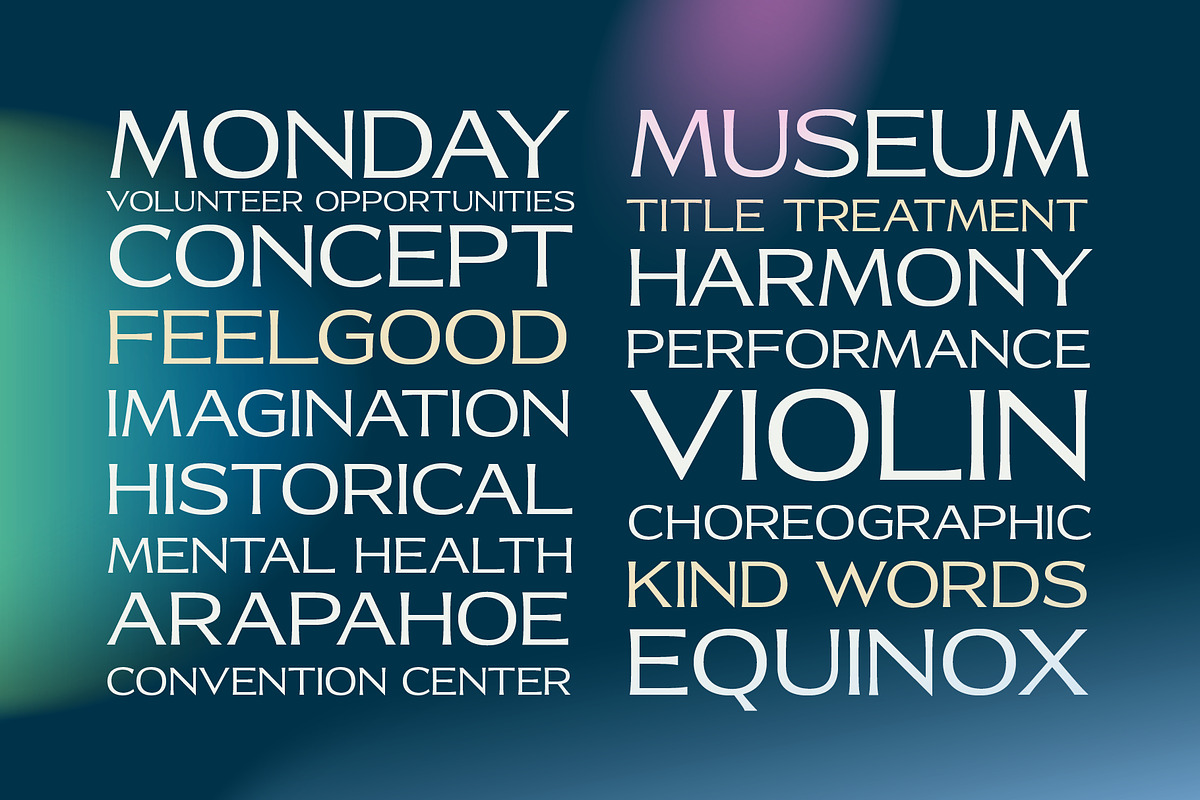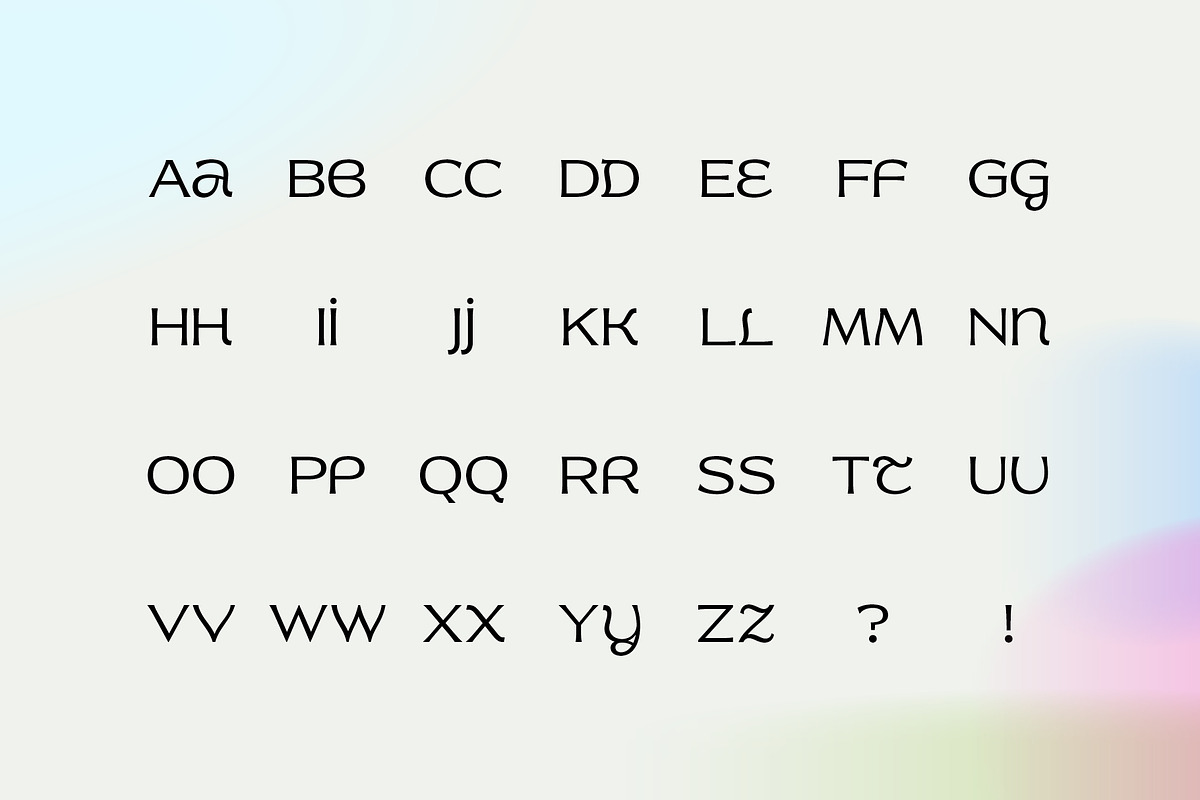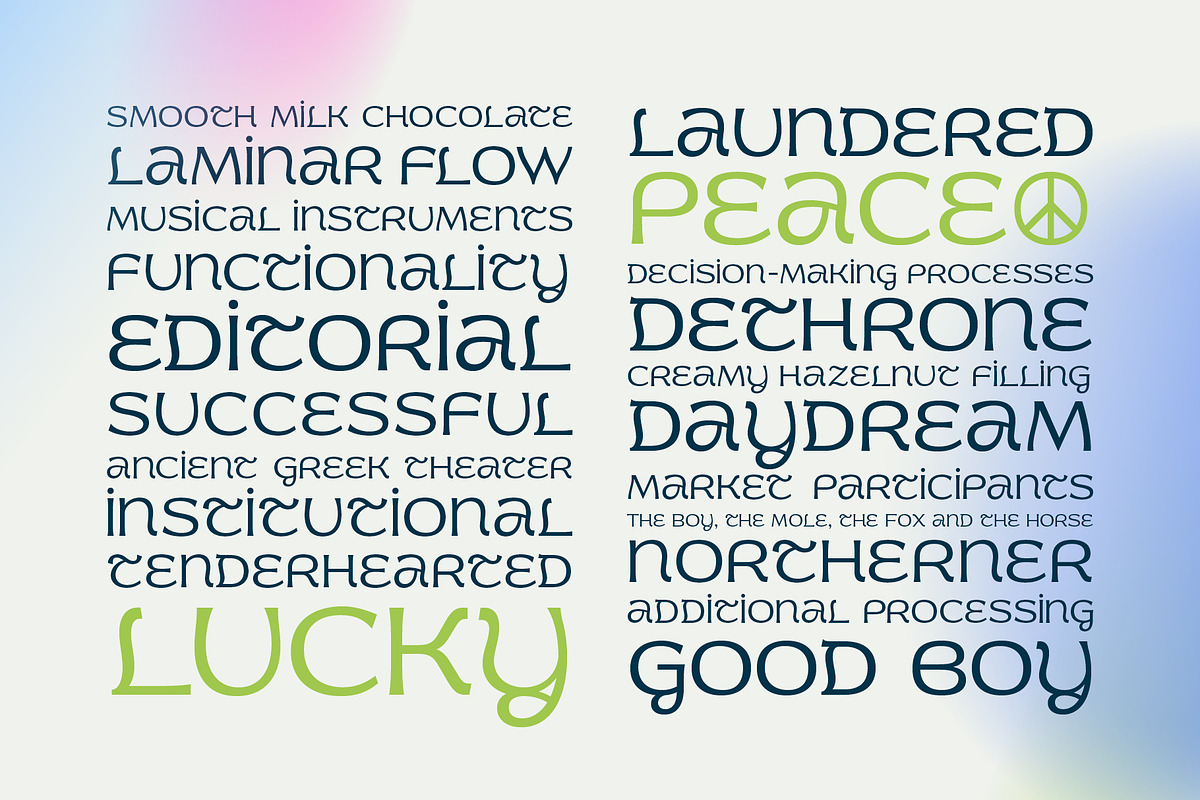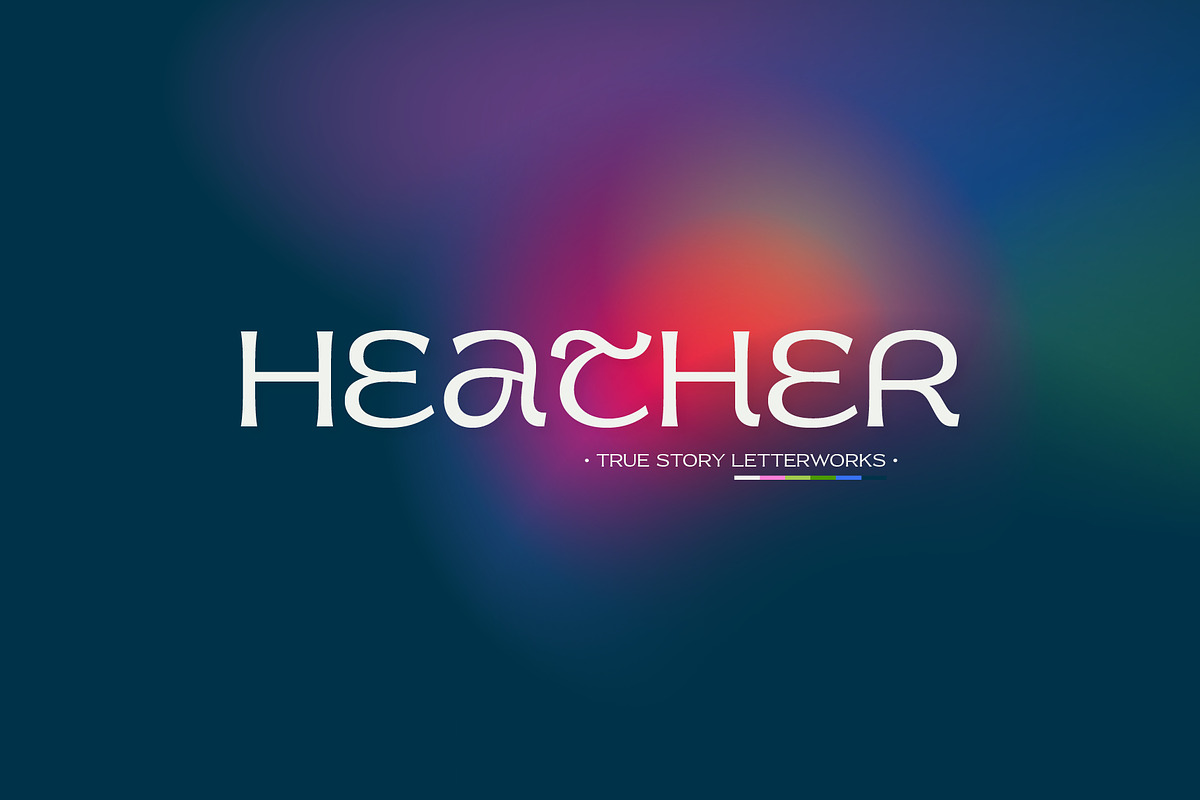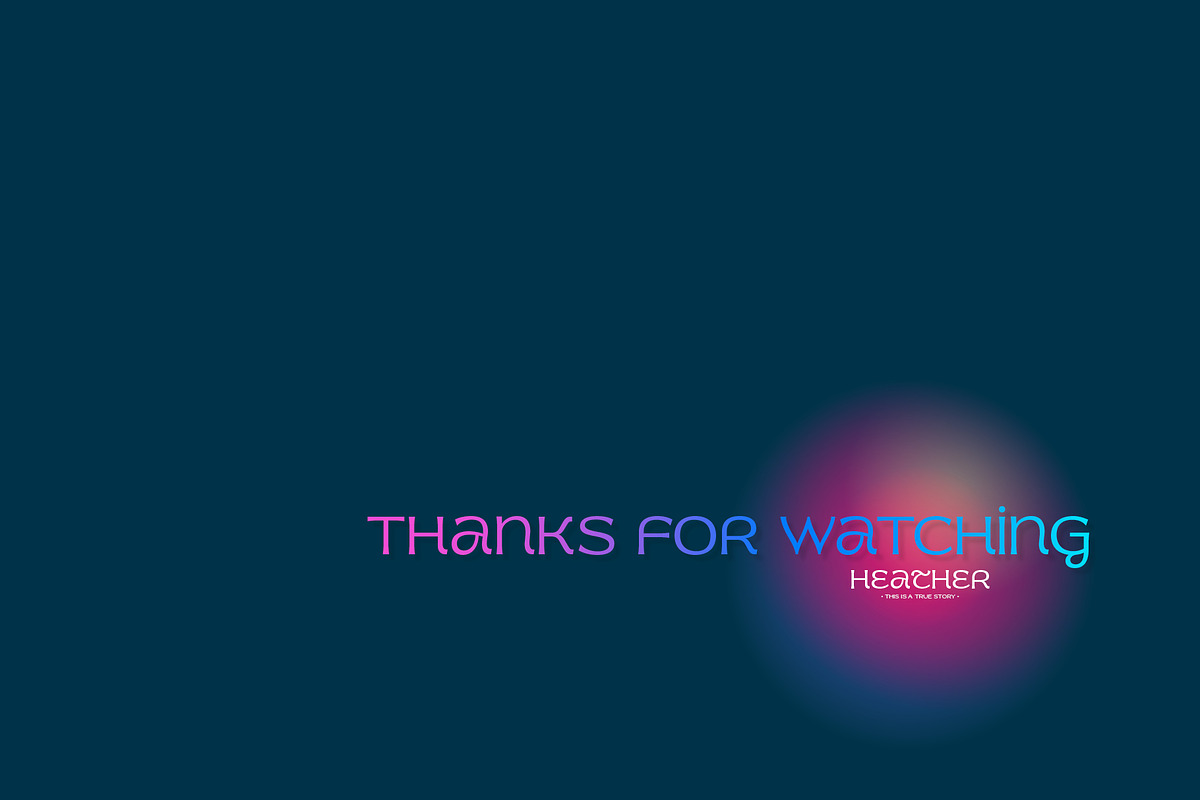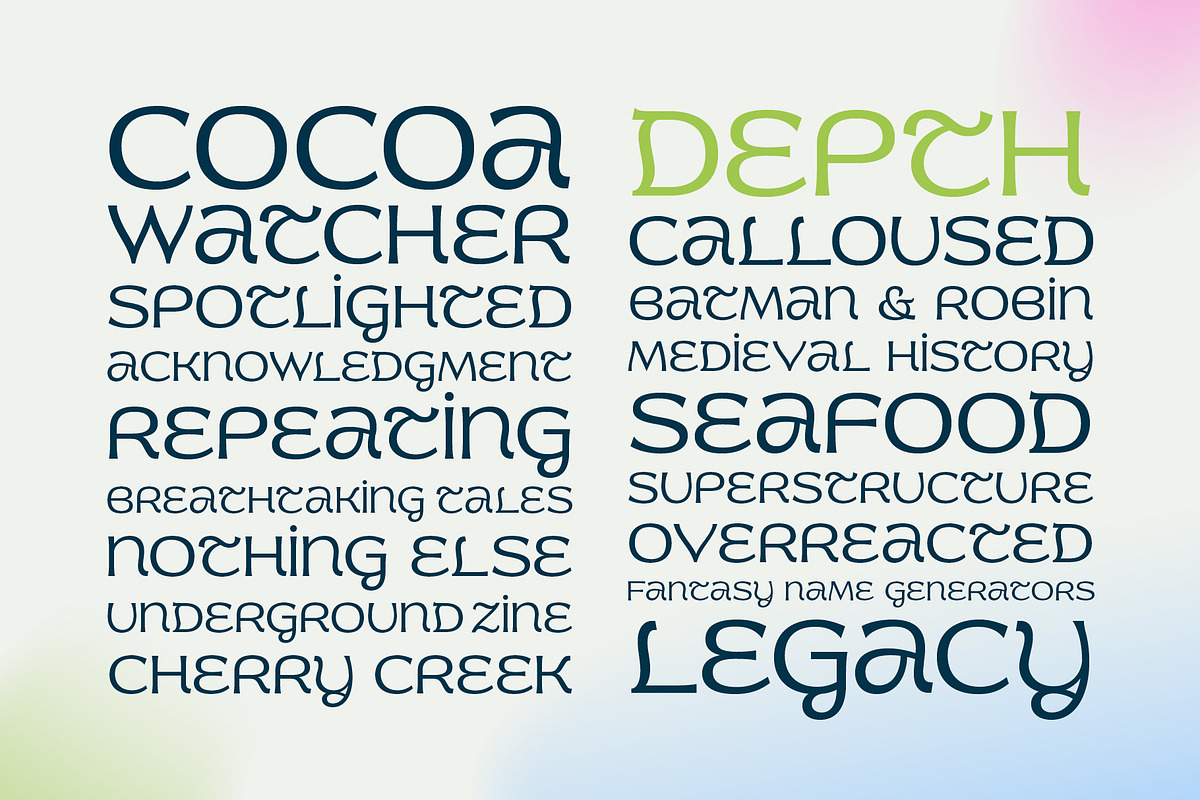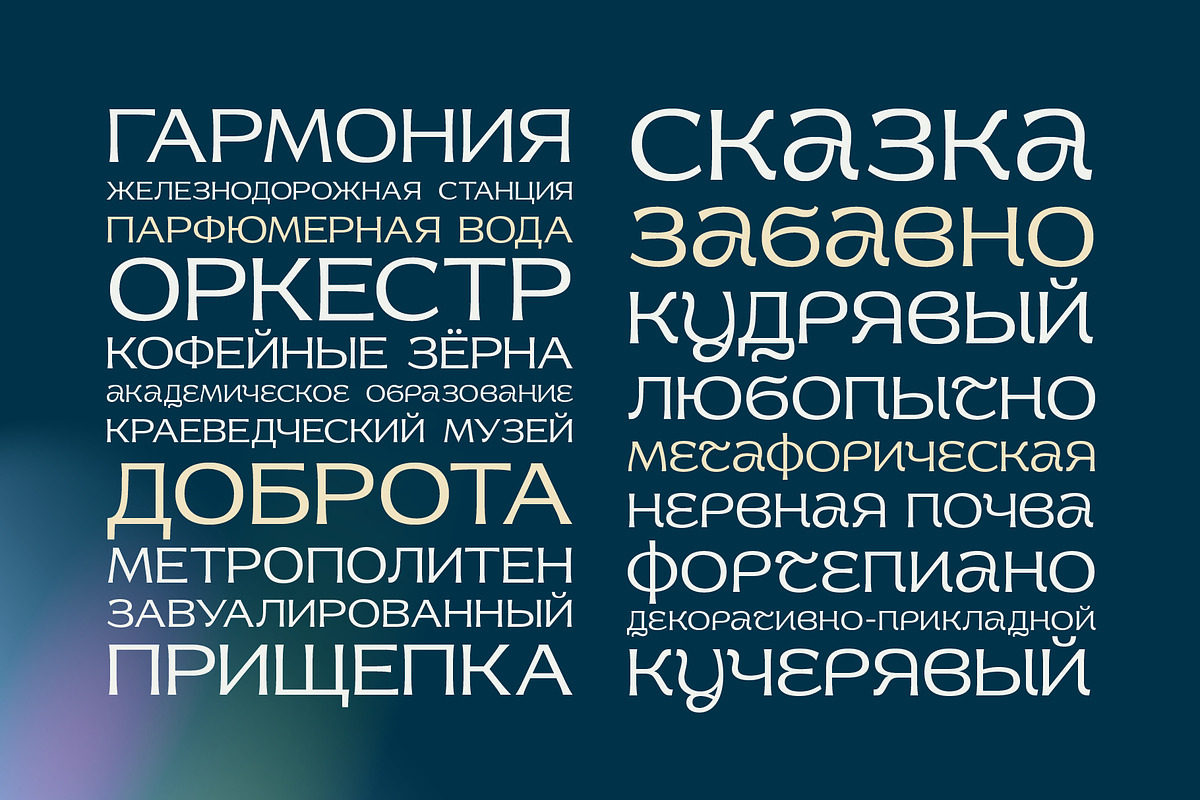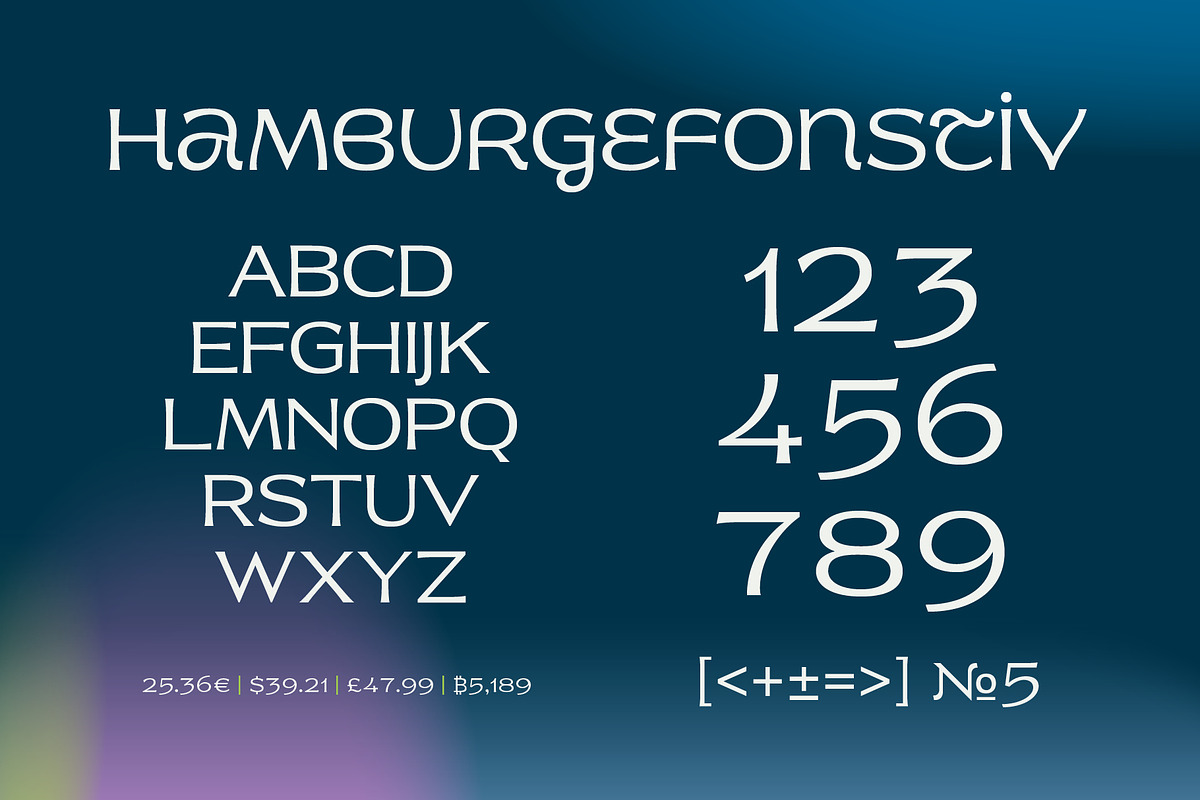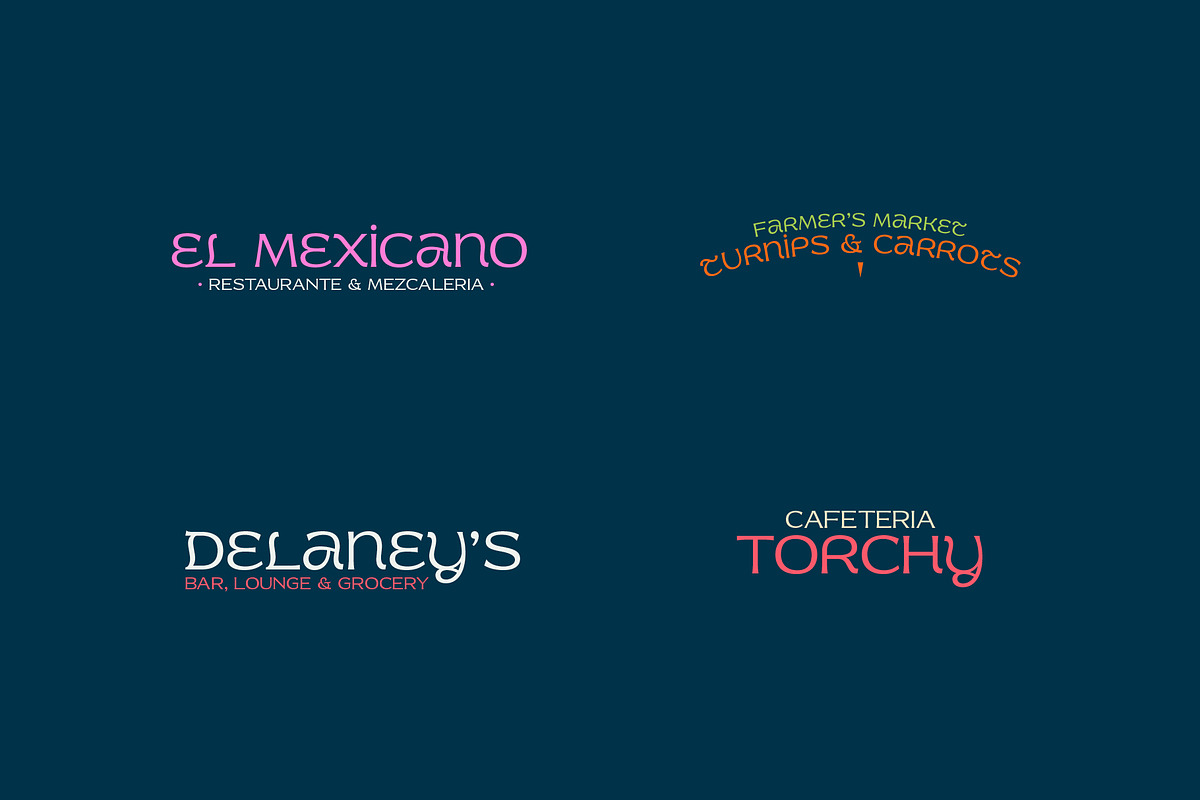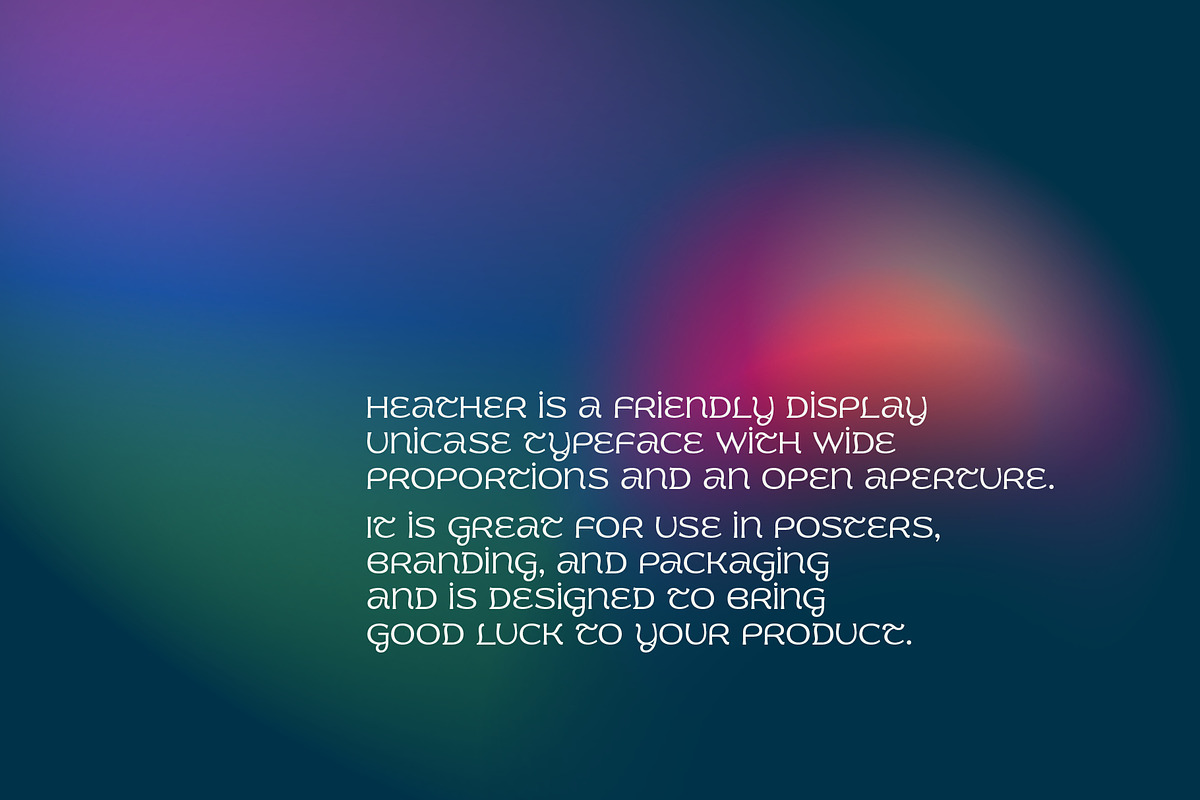
Heather
Heather is a friendly display unicase typeface with wide proportions and an open aperture. It is great for use in posters, branding, and packaging and is designed to bring good luck to your product.